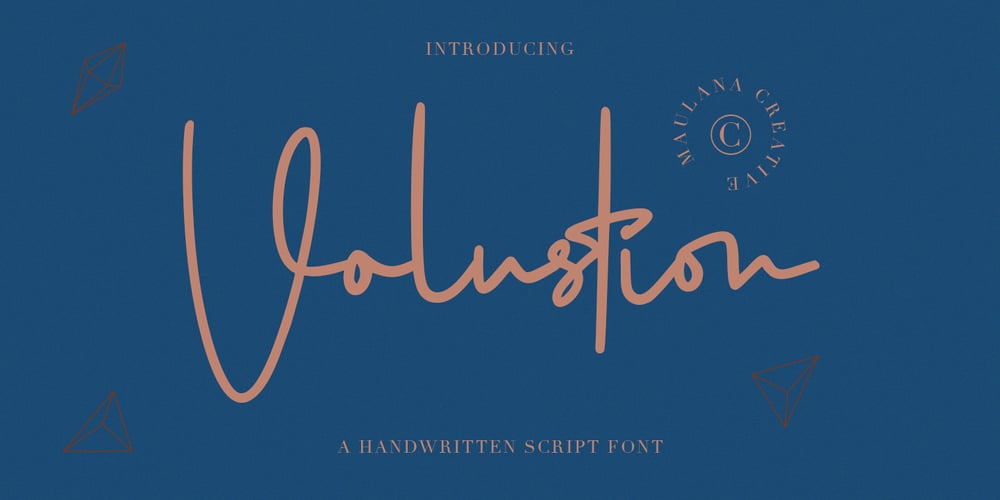
Volustion
Volustion font
Volustion Font Family was designed by Gilang Maulana and published by Maulana Creative. Volustion contains 1 styles and family package options. Give your designs an authentic handcrafted feel. “Volustion Handwritten Script Font” is perfectly suited to signature, stationery, logo, typography quotes, magazine or book cover, website header, clothing, branding, packaging design and more.Thanks for use this font ~ Maulana